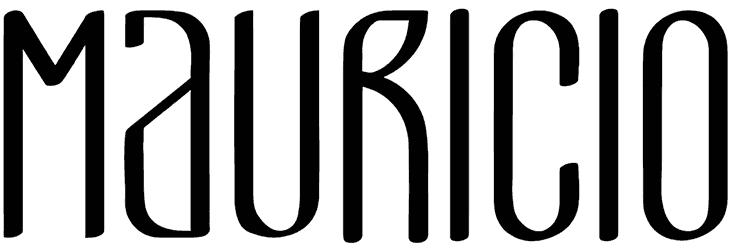
Mauricio is a detailed font that has a cohesively narrow personality and slightly slanted characters. Although this handwritten font lacks some lowercase letters, it’s still a great way to elicit an emotional response from your audience
For projects demanding a modern and entertaining aesthetic effect, like branding, clothing, and posters, you can acquire this fancy, 1940s font. Let’s have a look at our web catalog and see how many fonts are similar to this right now.
Mauricio is a simple sans family. It has tall feels yet unique. All included styles can be combined perfectly, giving you the opportunity to create multiple unique designs with just this one download.